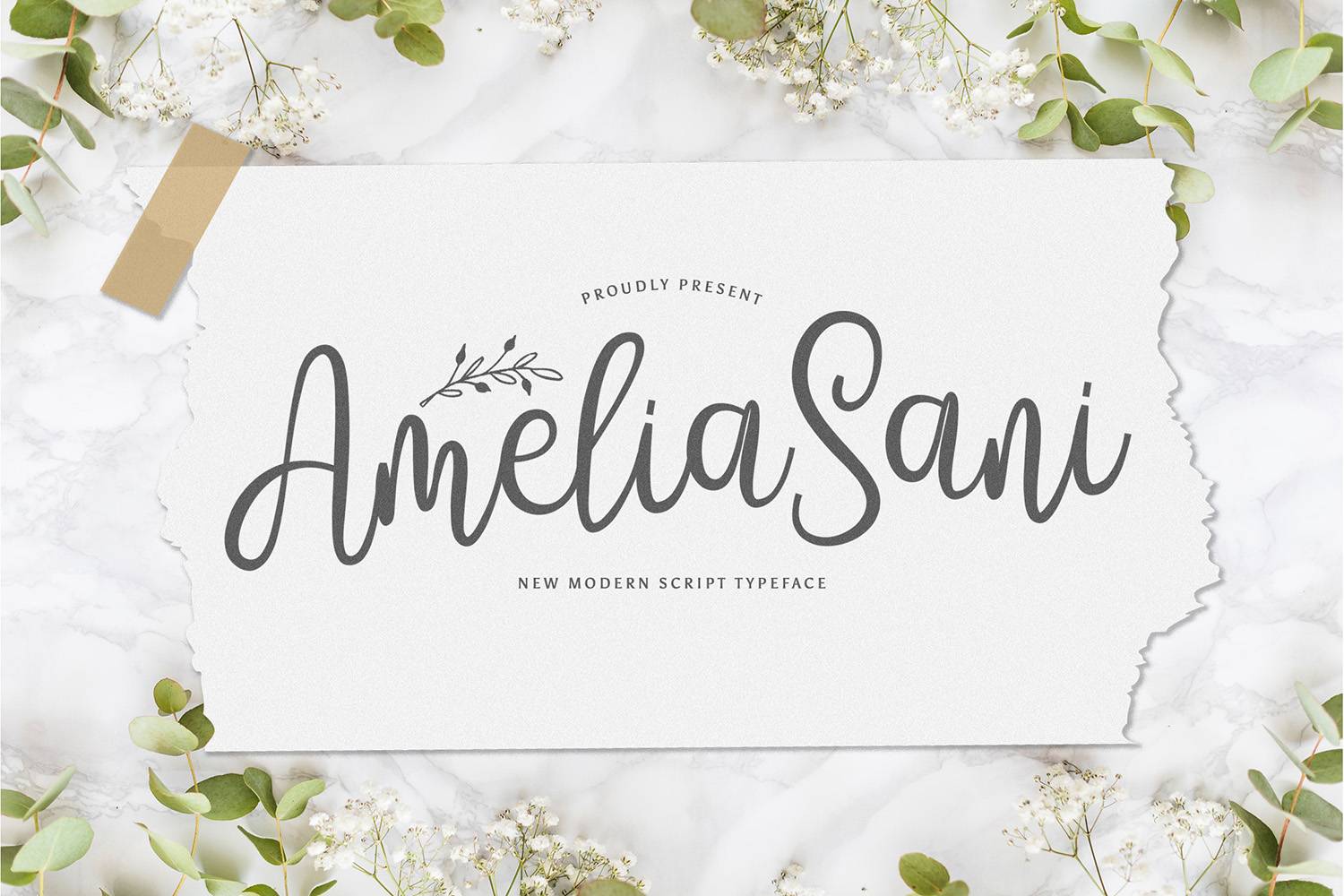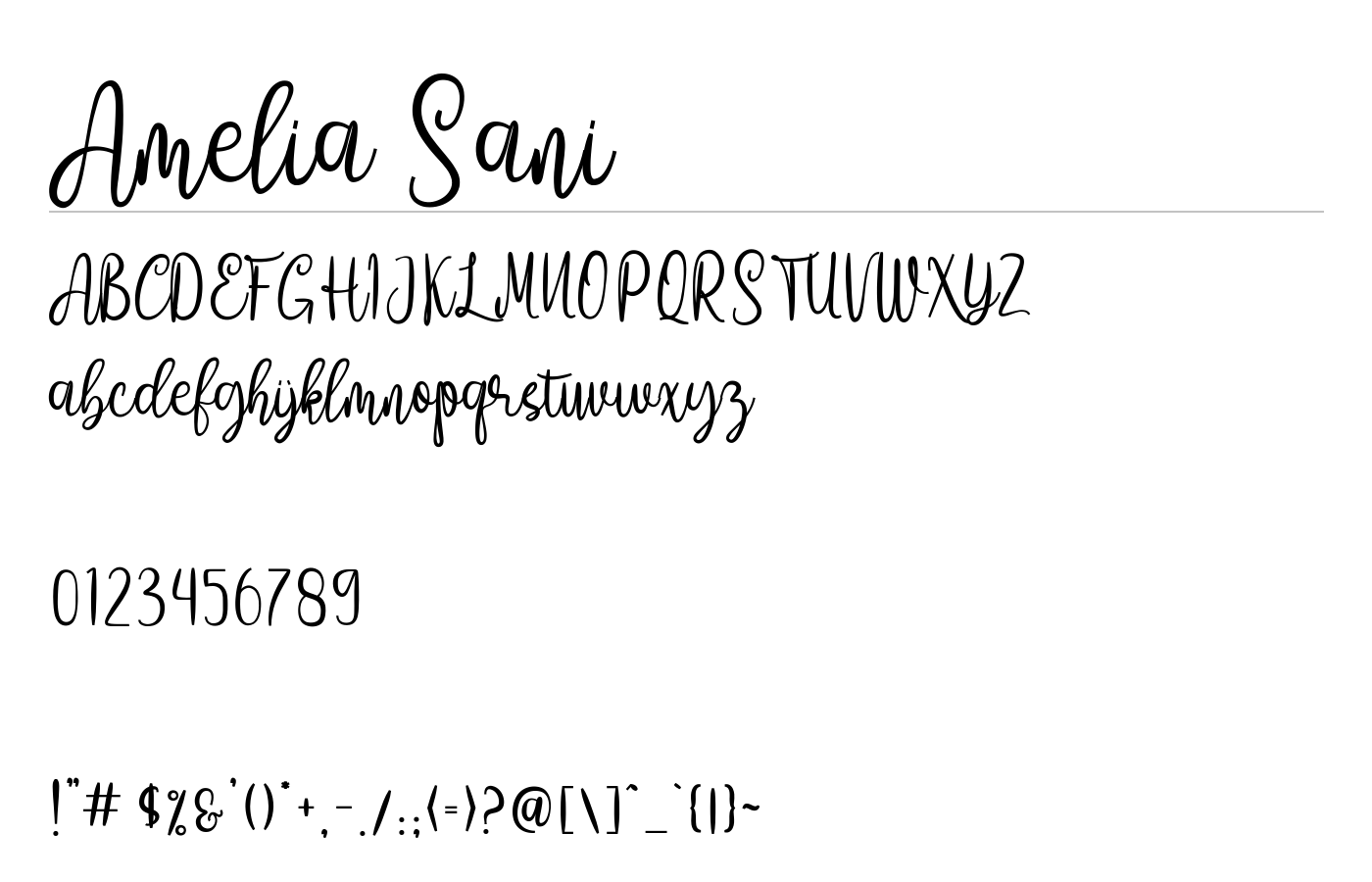
Amelia Sani is a playful and elegant script font with a casual, handwritten feel. Its slender, smooth strokes and charmingly looping letterforms create a friendly and approachable style, perfect for invitations, branding, or any creative project seeking a personal touch. This font works well in logos, greeting cards, and headlines where a warm, stylish, and lively impression is desired.
Amelia Sani Font